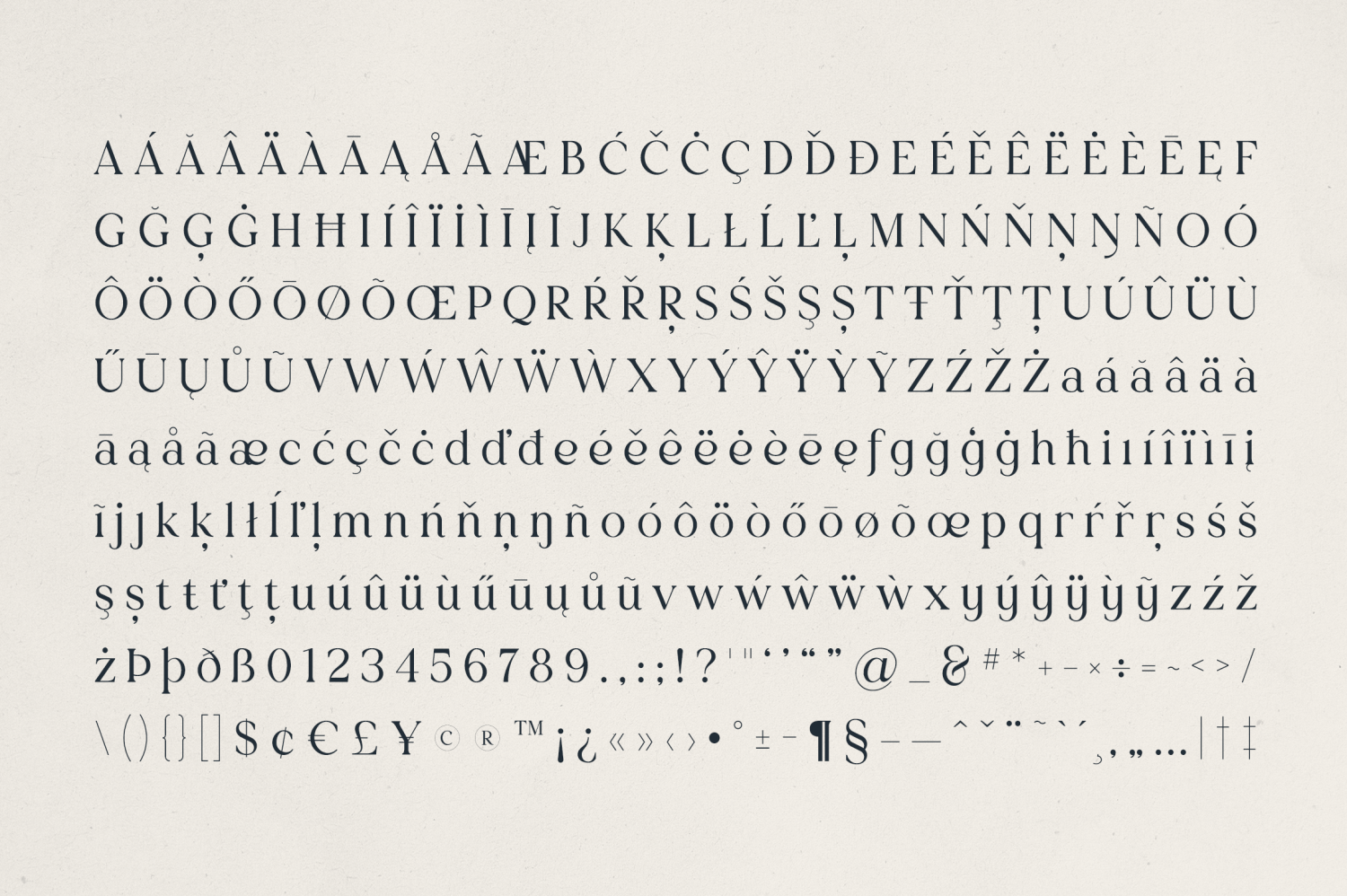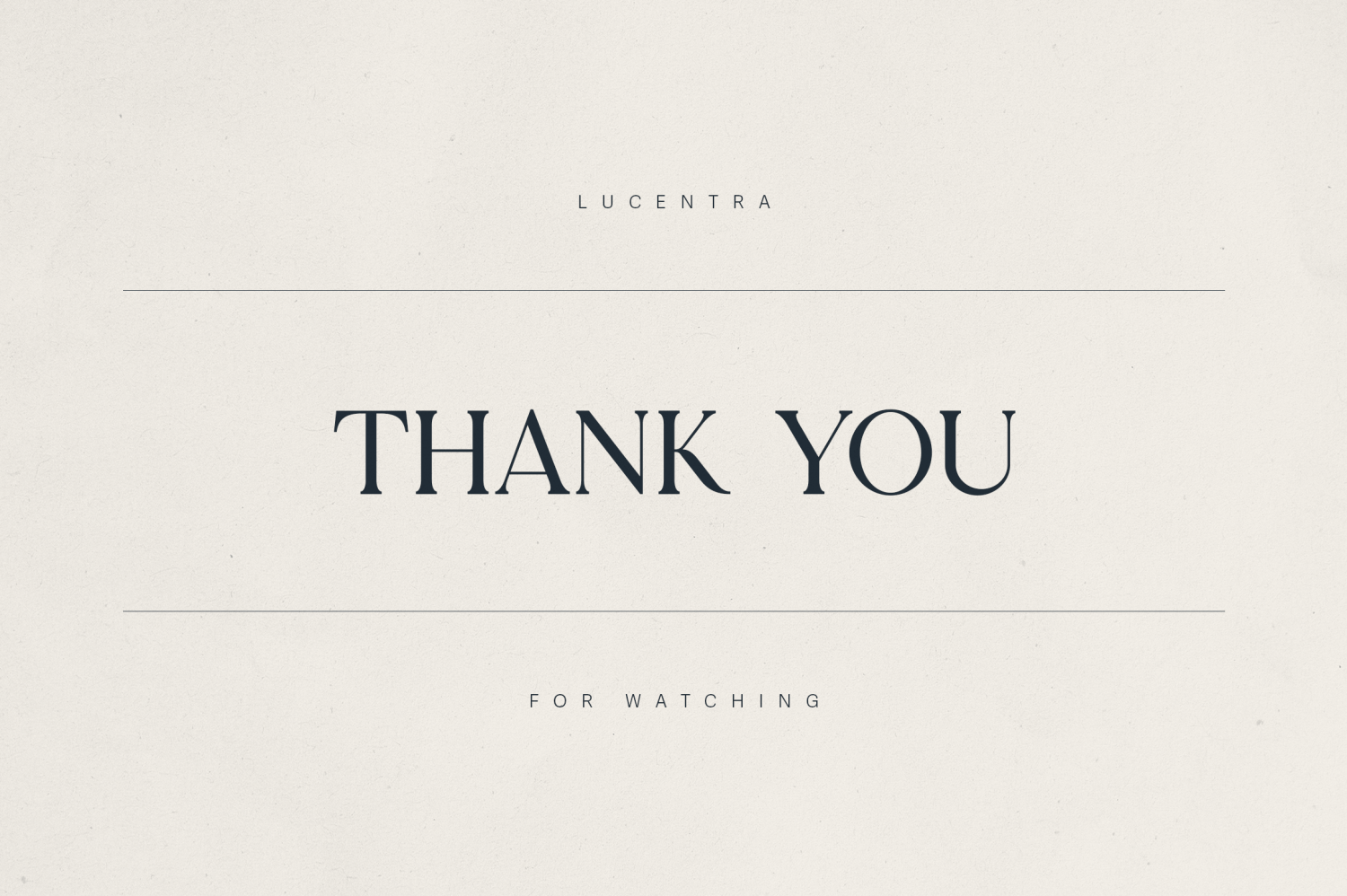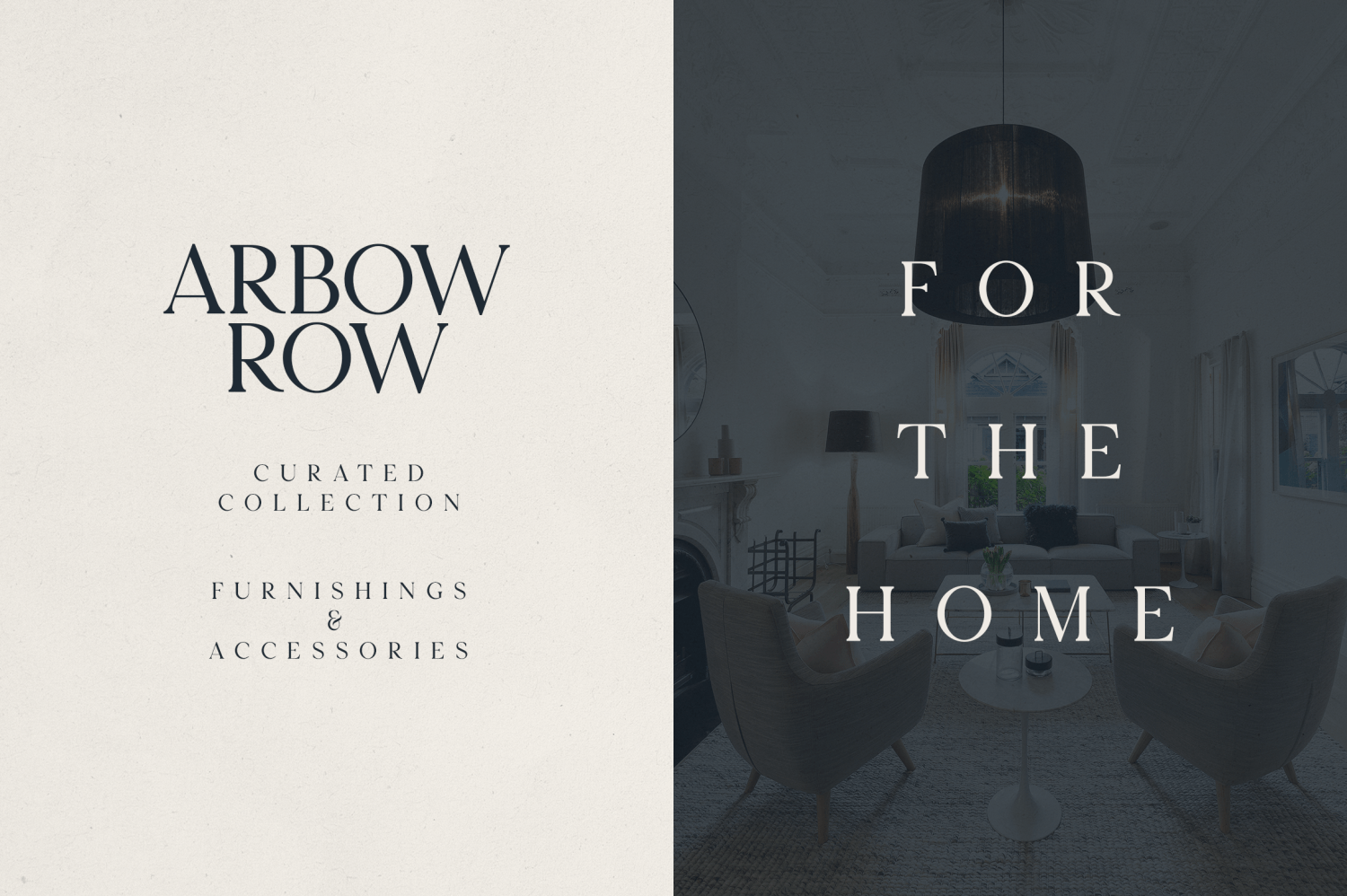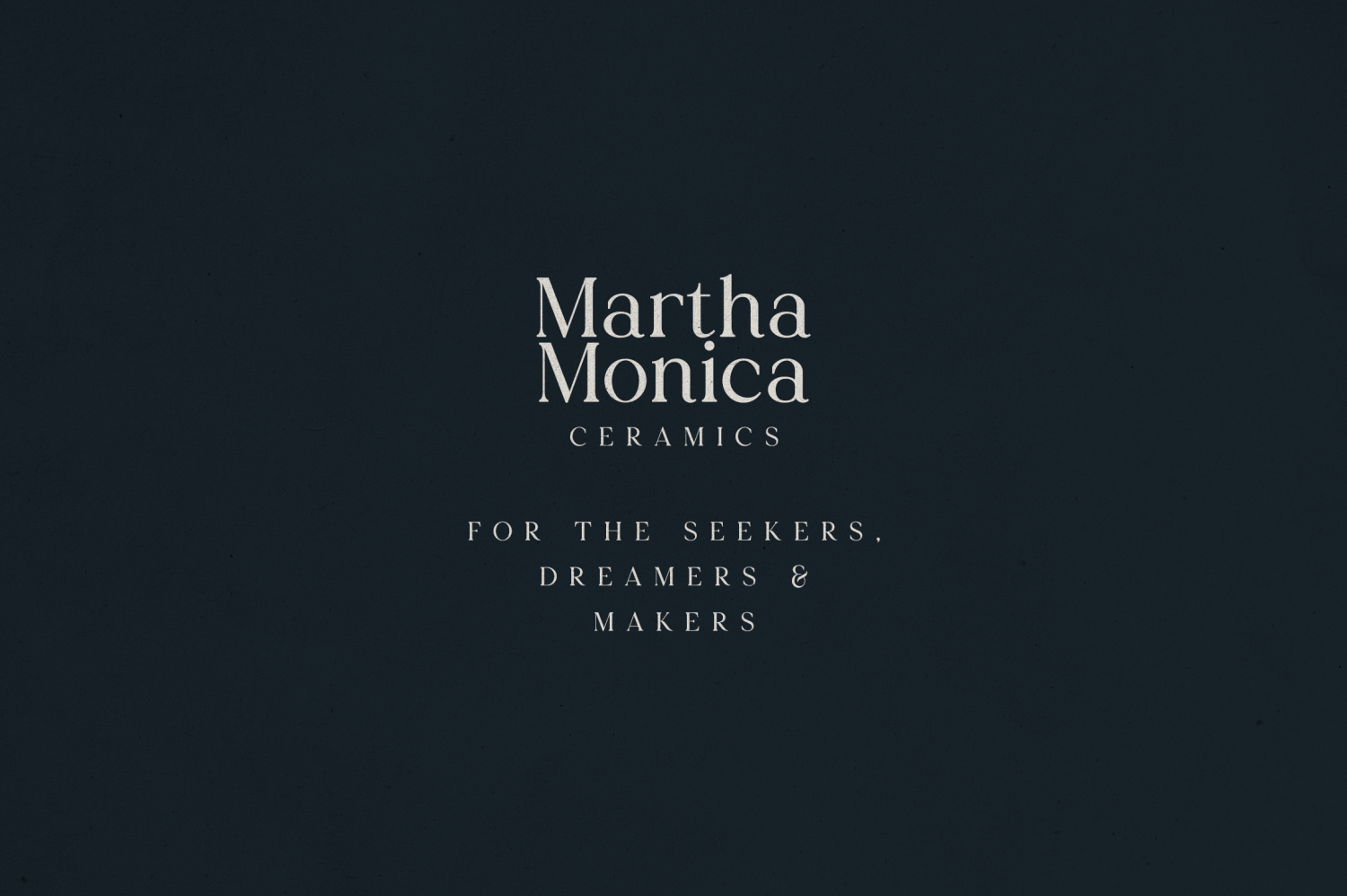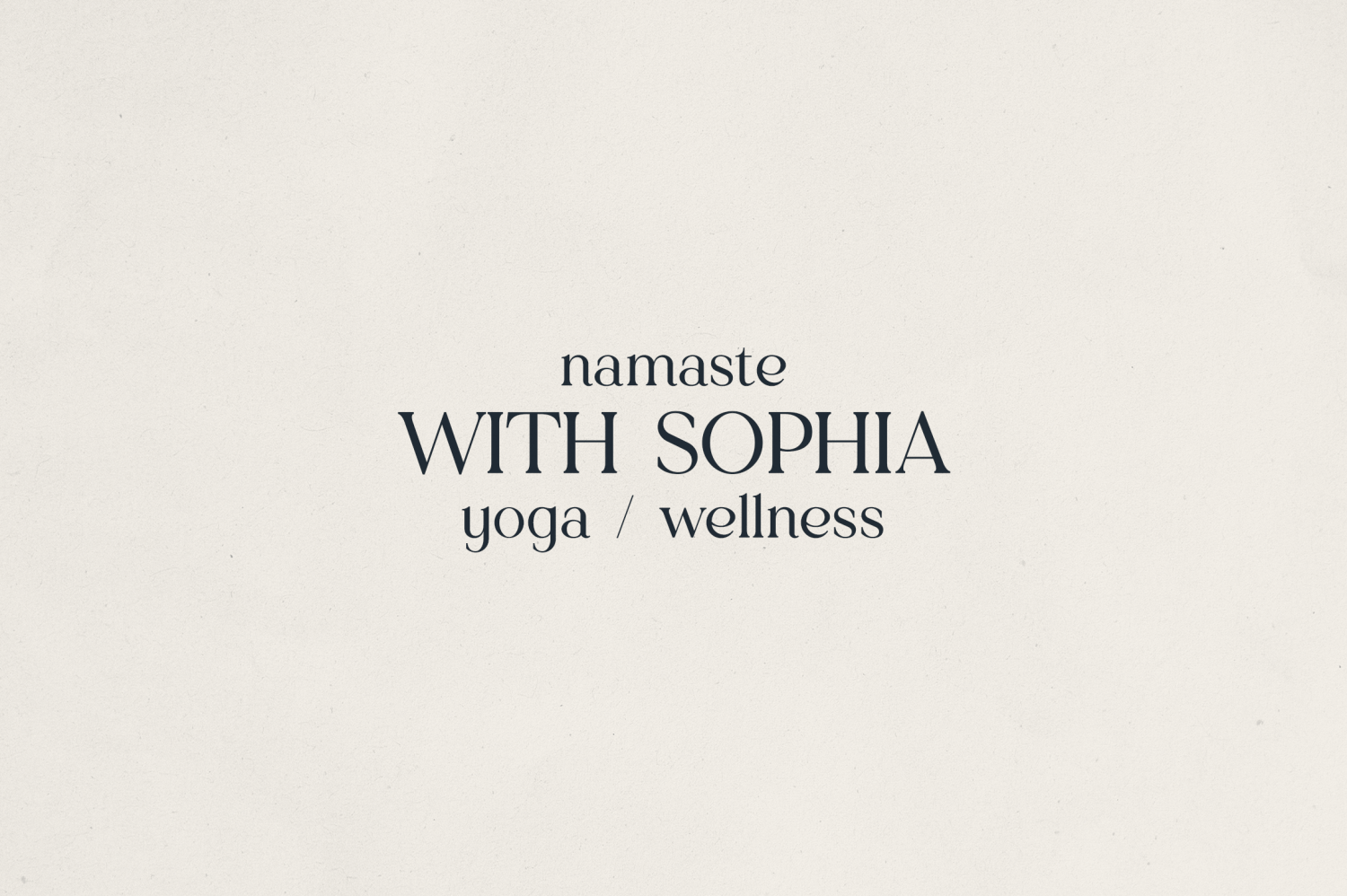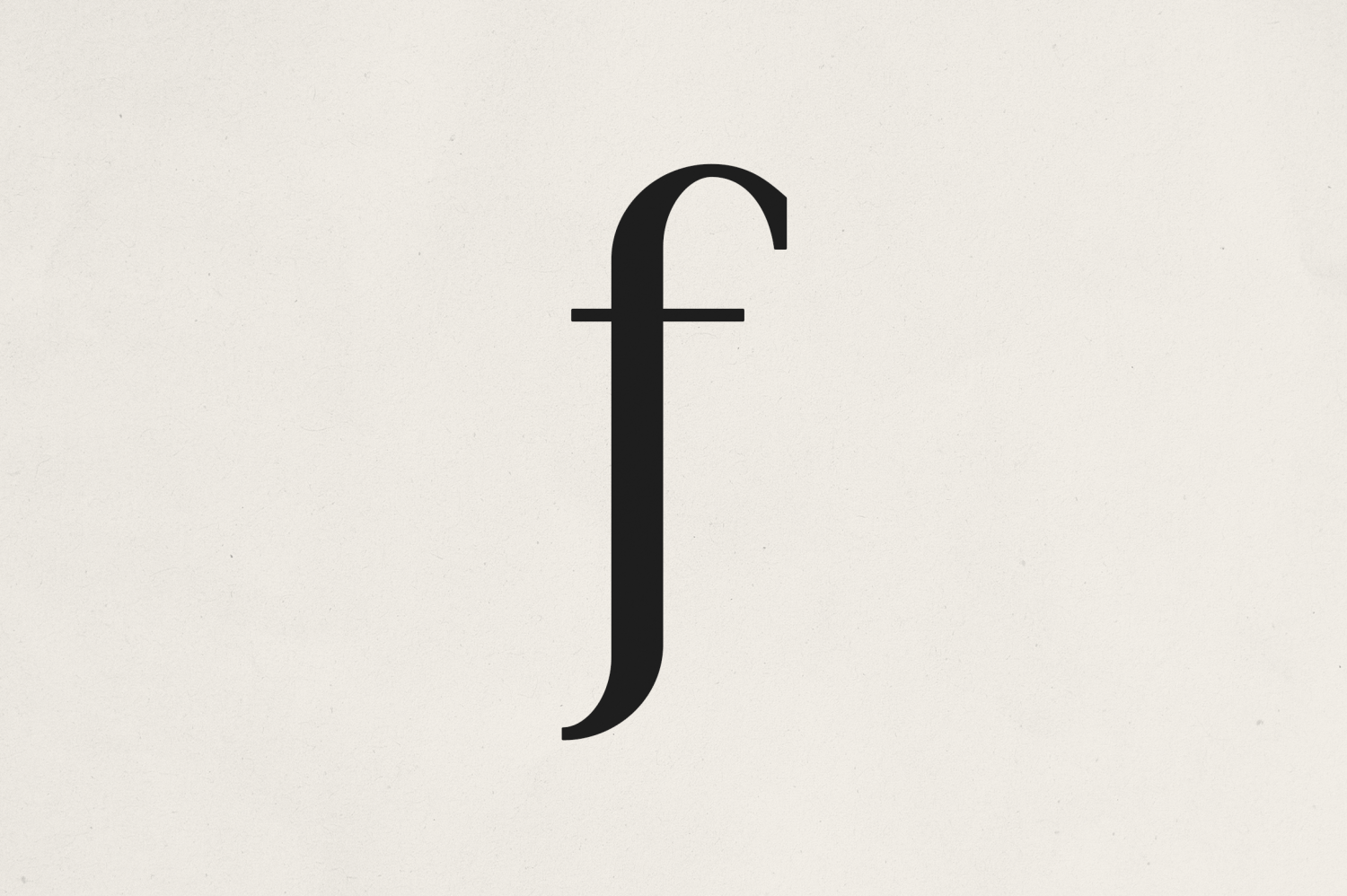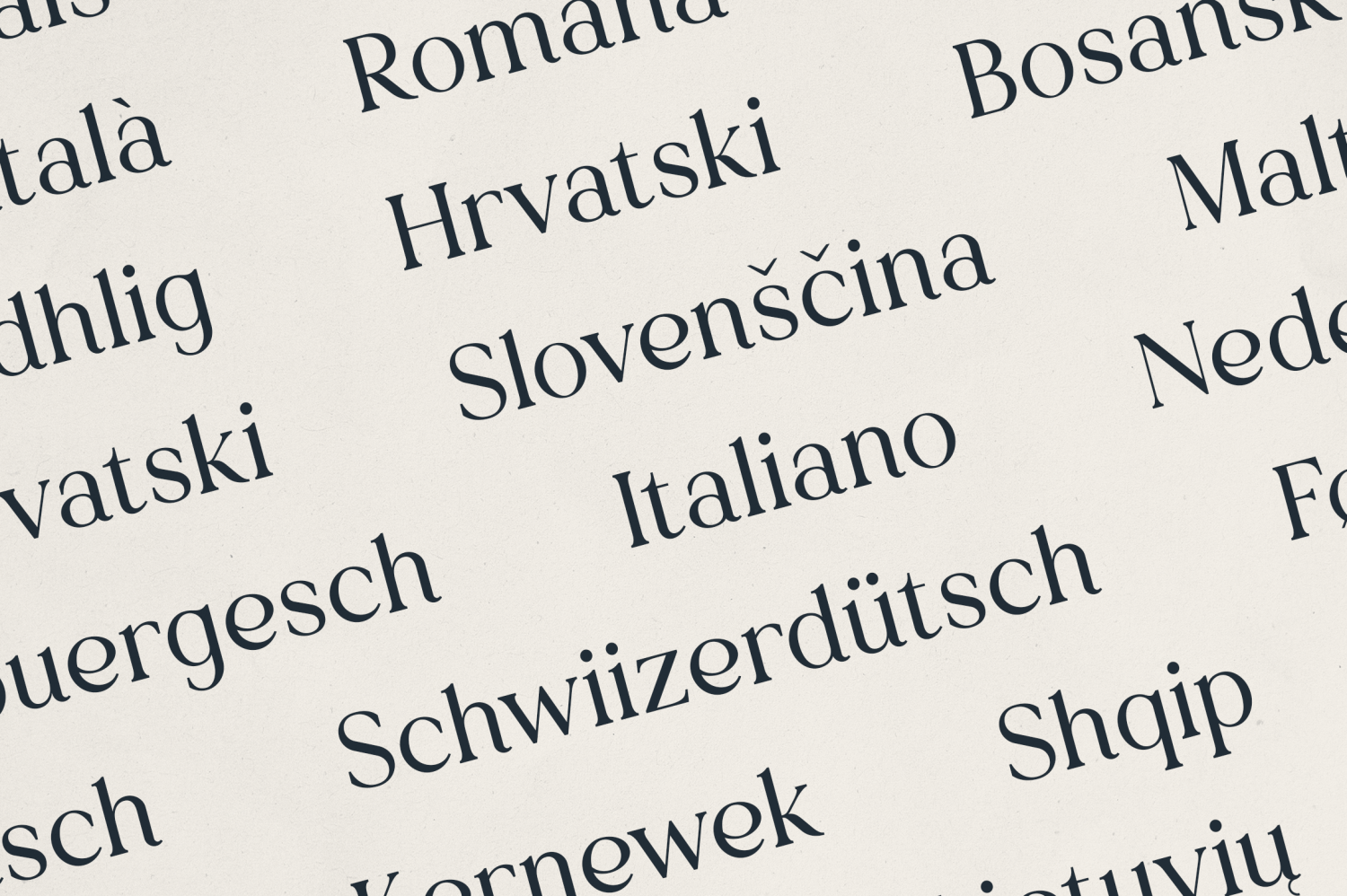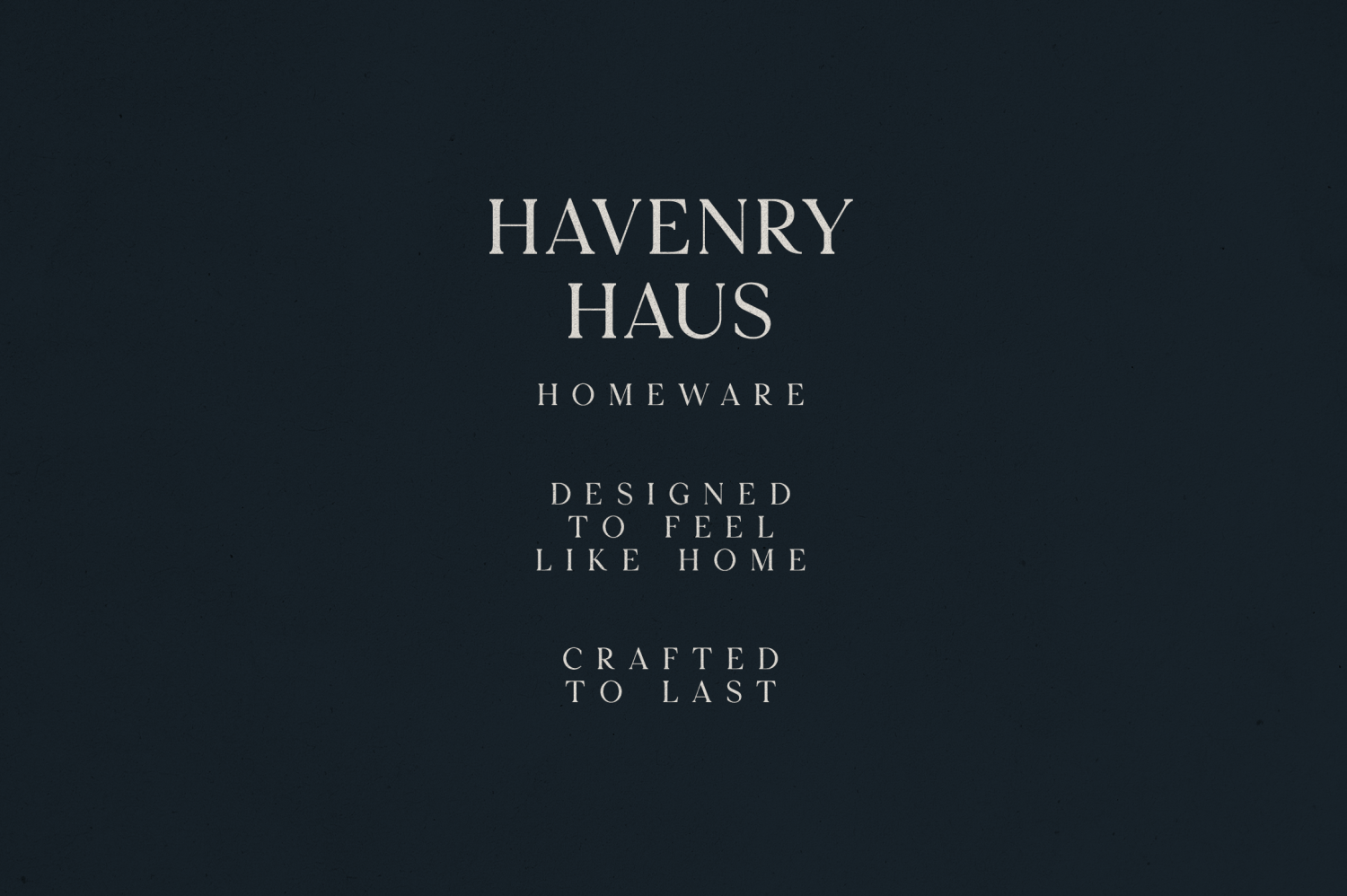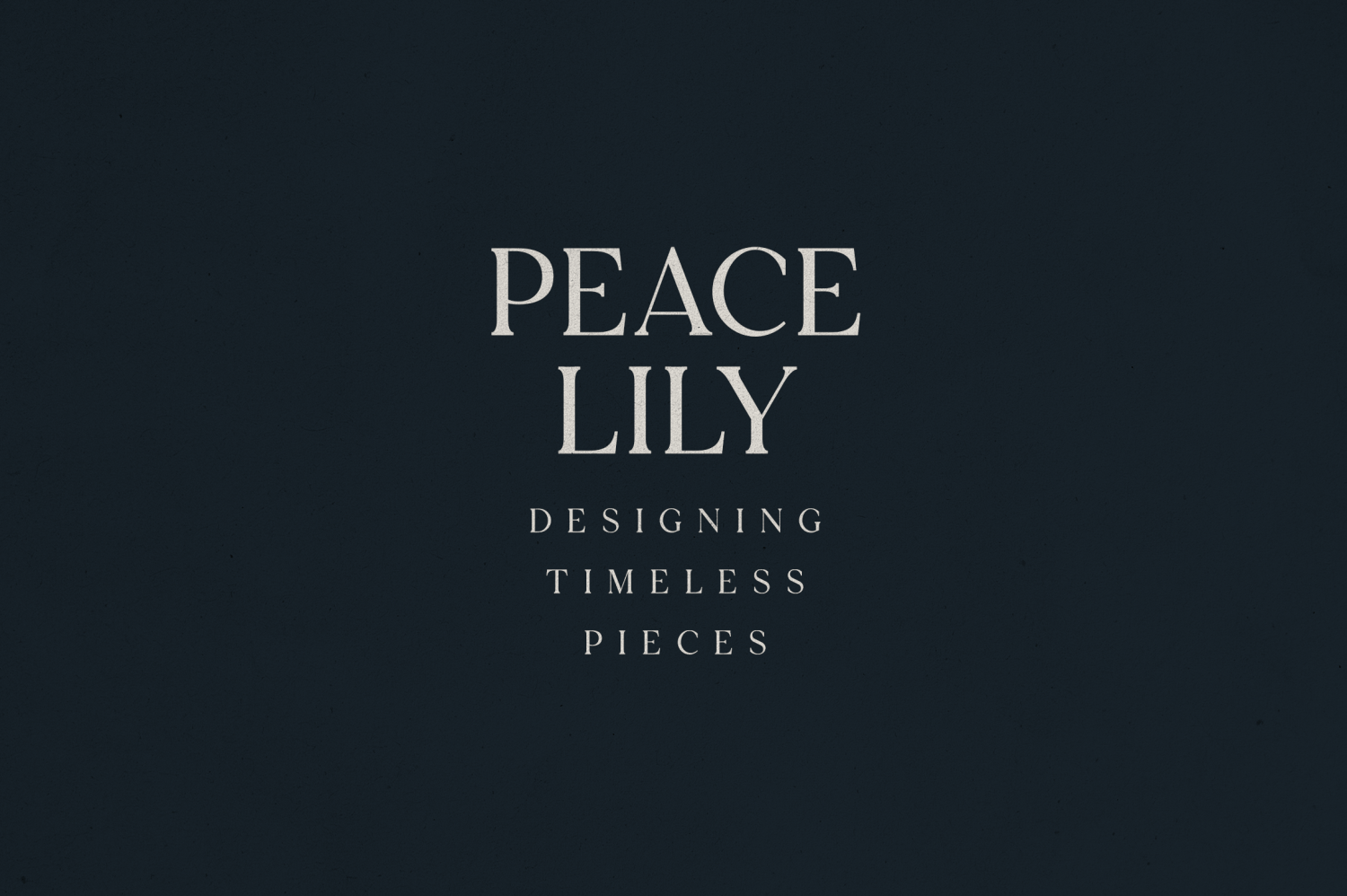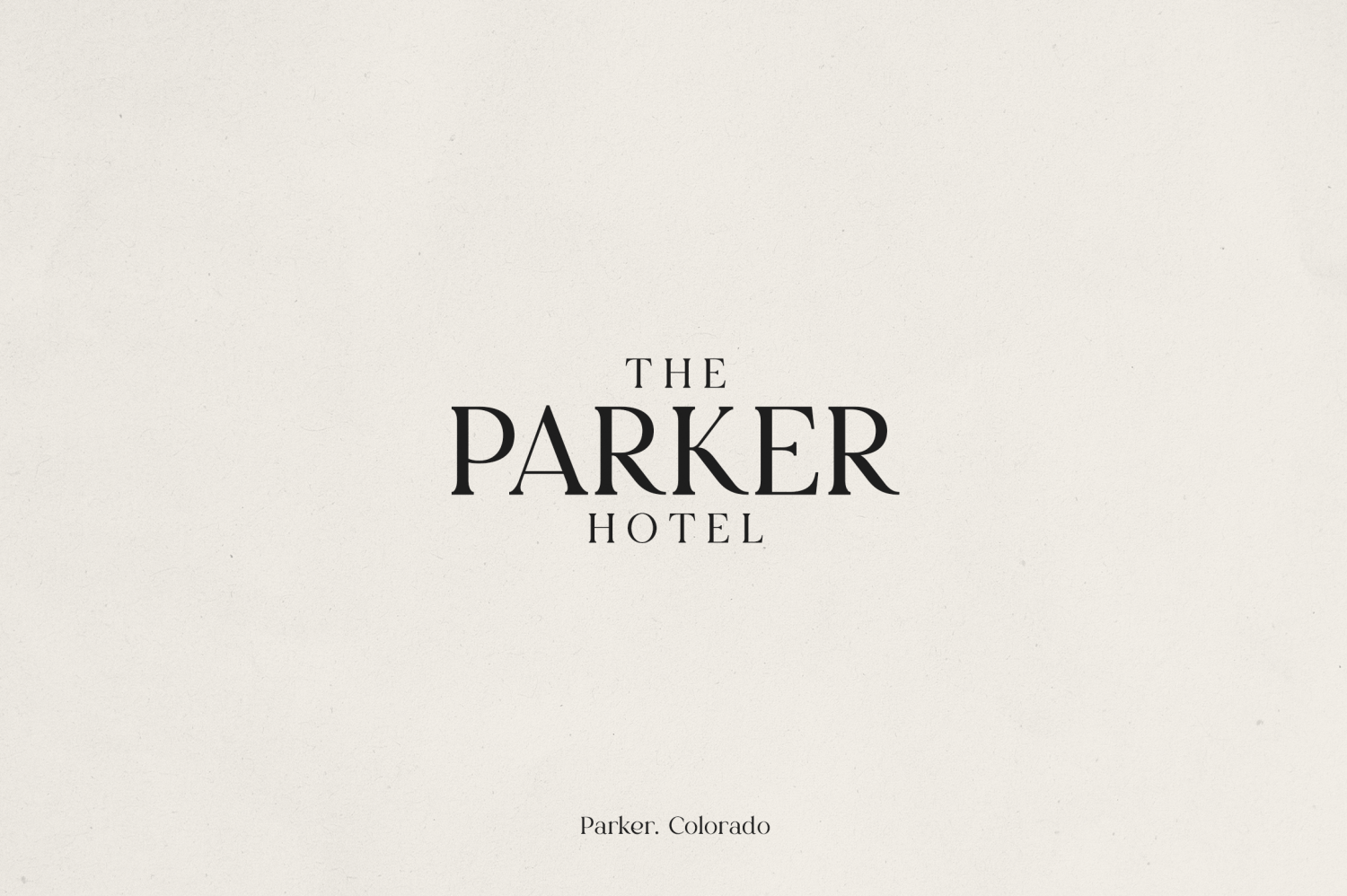
Lucentra
Lucentra is a sophisticated serif typeface that blends timeless elegance with modern refinement. Its graceful curves, high contrast strokes, and subtly flared serifs create a harmonious balance between classic beauty and contemporary clarity. Perfect for luxury branding, editorial layouts, hospitality identities, and lifestyle products, Lucentra brings a sense of poise and sophistication to any design.
With extensive multilingual support, meticulous attention to detail, Lucentra is crafted for creatives who value both style and substance. From high-end product packaging to refined print layouts, this font communicates confidence, elegance, and lasting impression.
Ideal for: Branding, Editorial, Packaging, Invitations, Fashion, Lifestyle, and Hospitality Design.